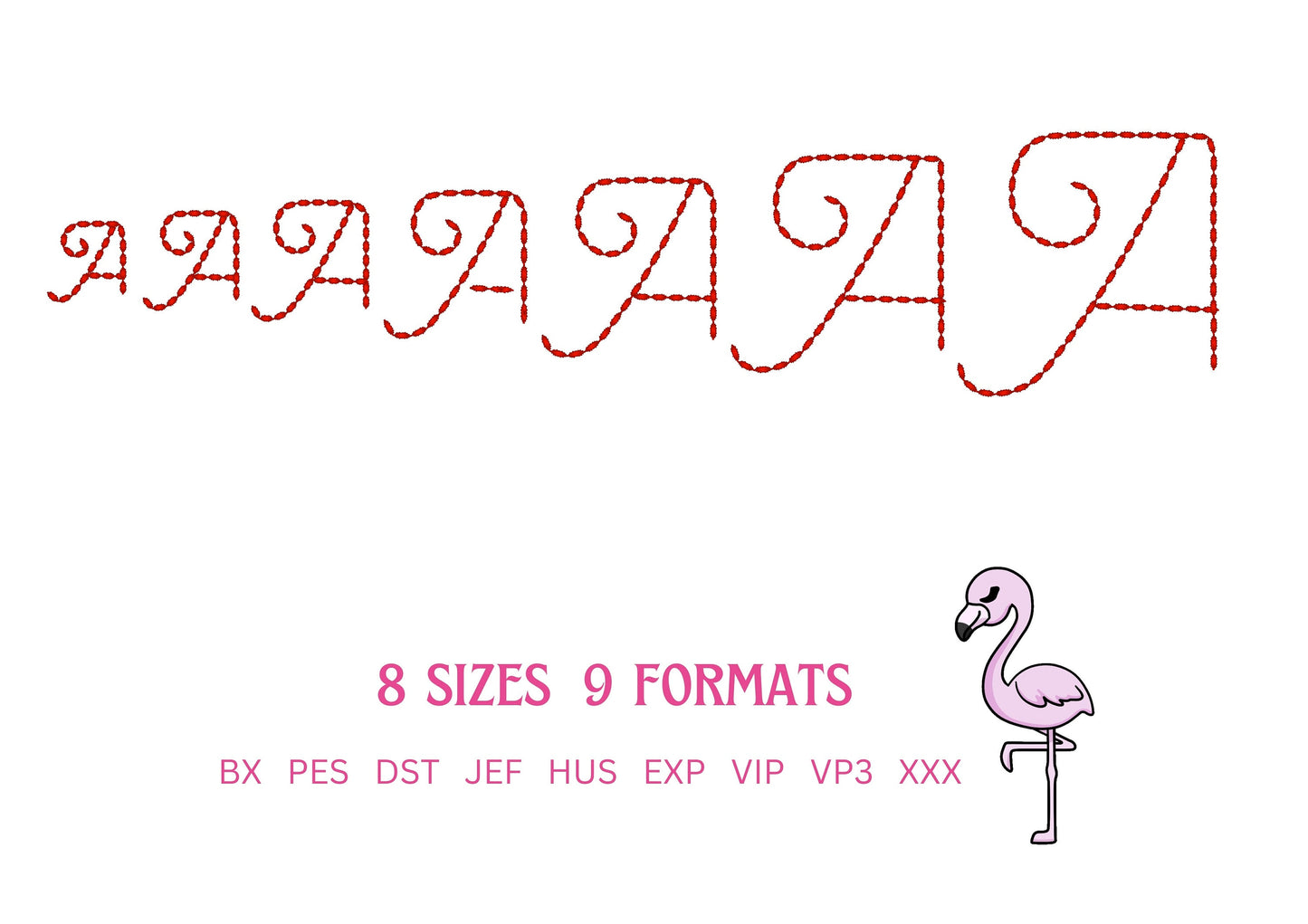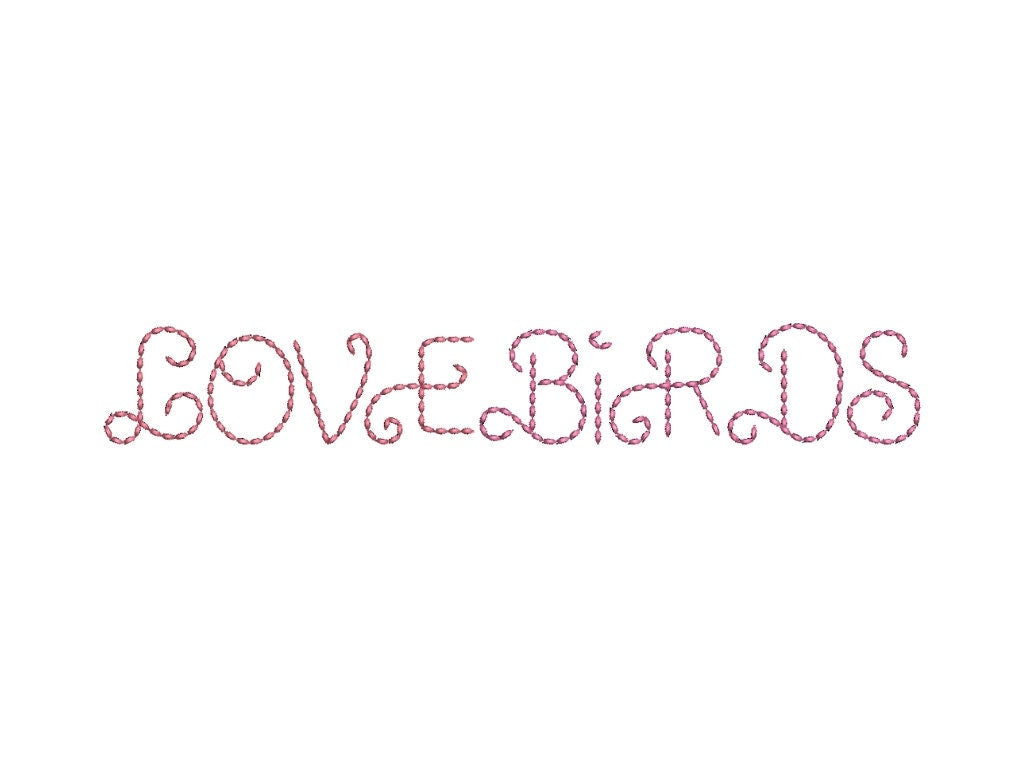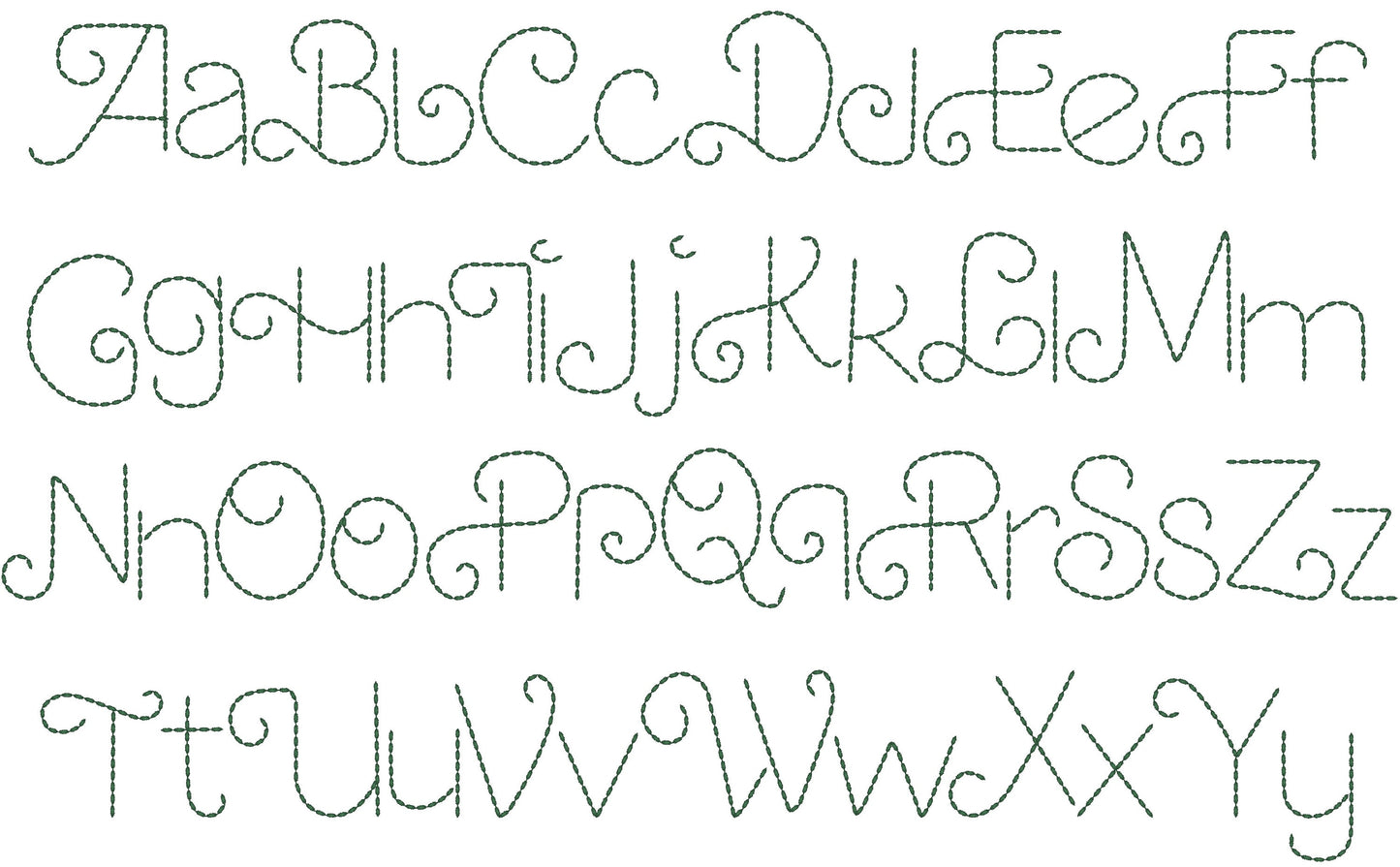
Hand Stitch Effect Font
Uppercase and lowercase letters and numbers 0 to 9 in seven sizes: 0.8, 1, 1.3, 1.6, 2, 2.5 and 2.9 inches.
- Hand stitch look script font
- Uppercase and lowercase letters, numbers 0-9
- 7 sizes, 0.8 to 2.9 in